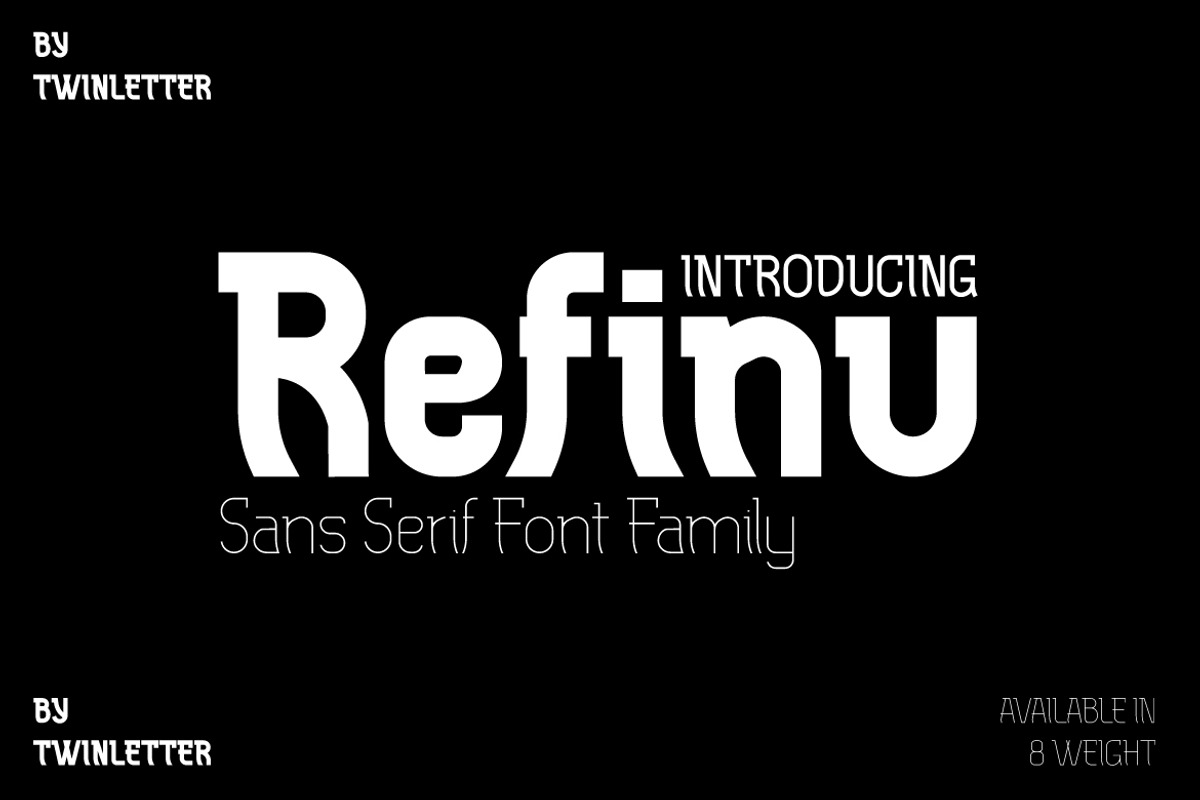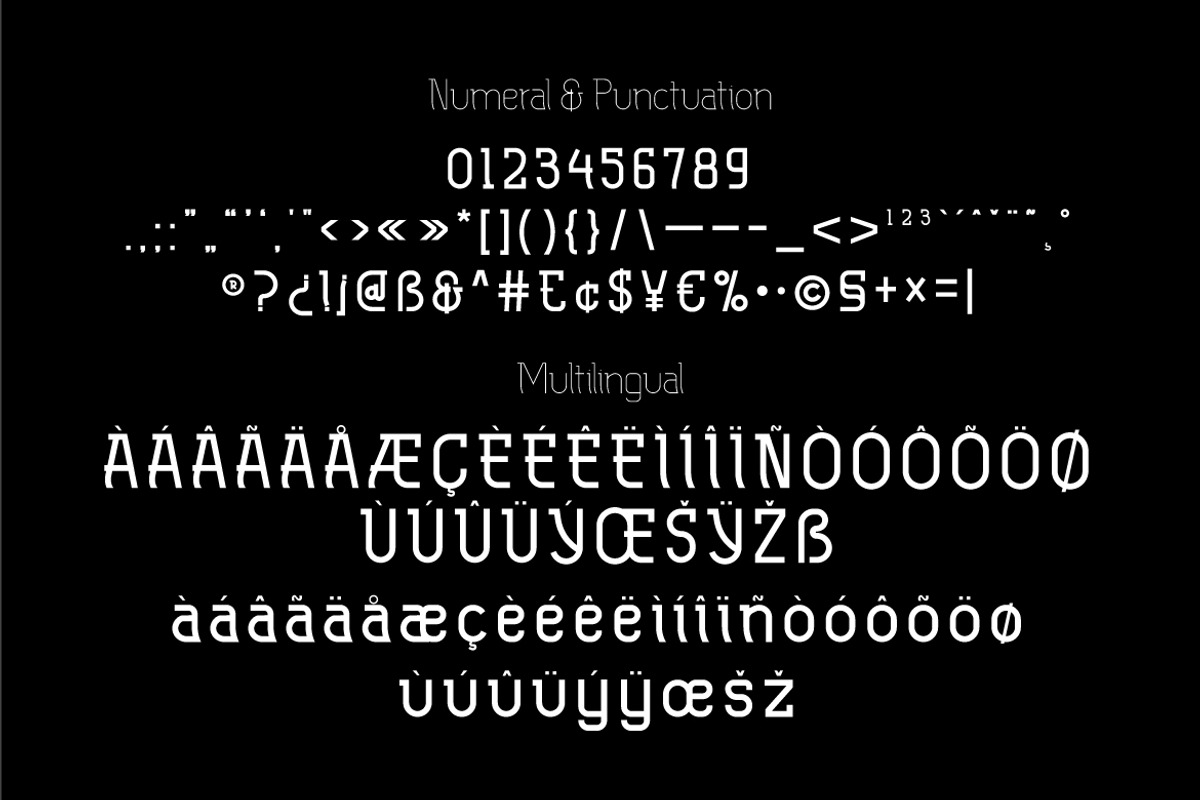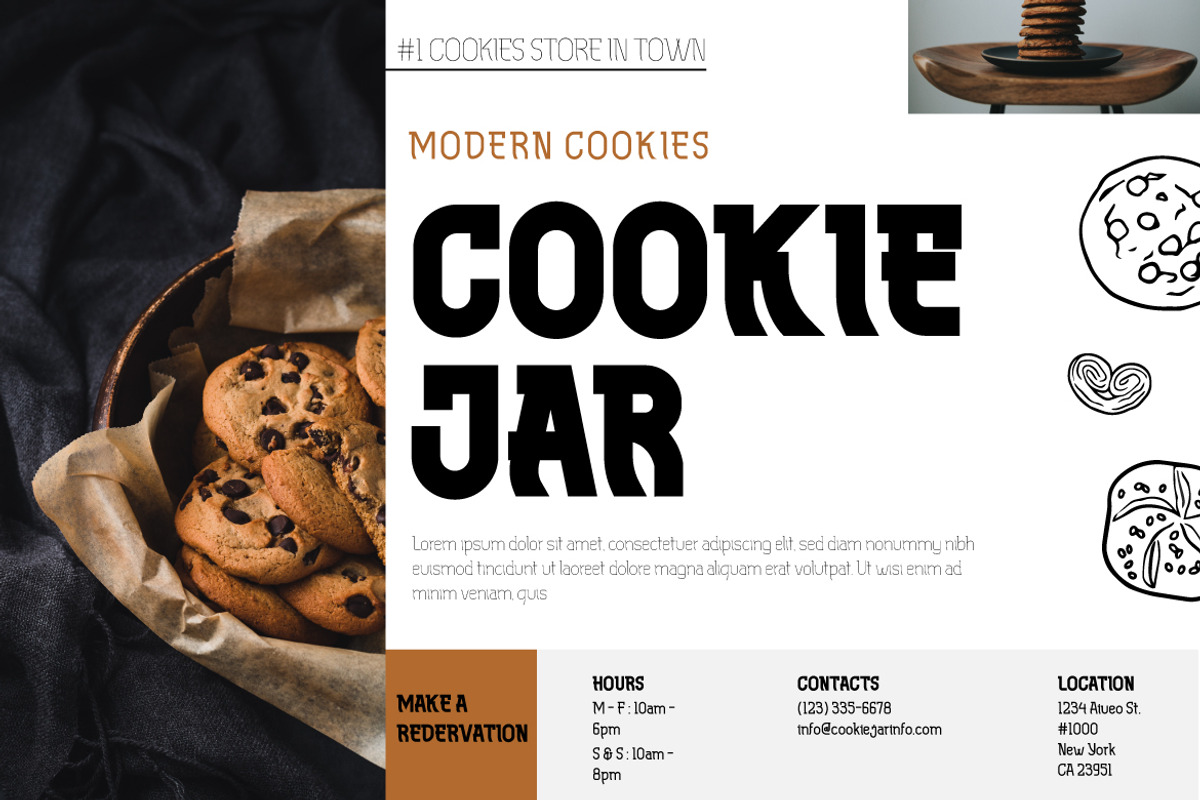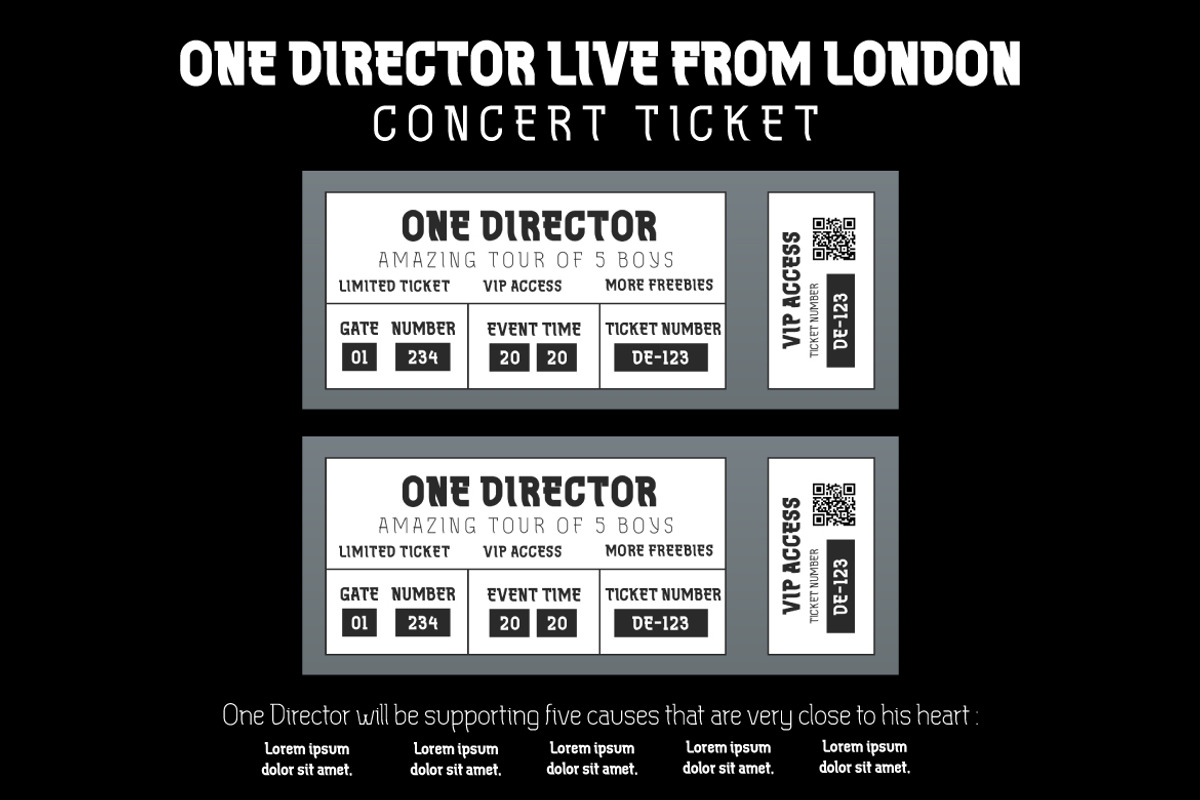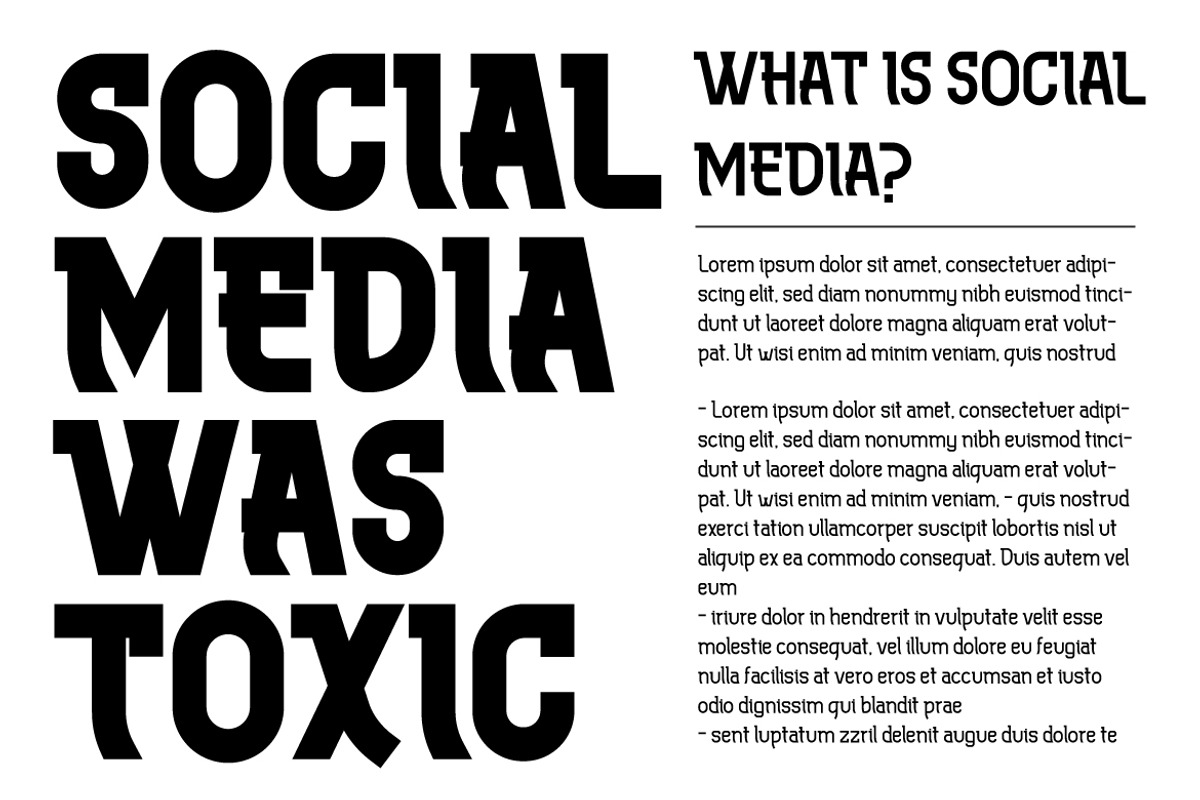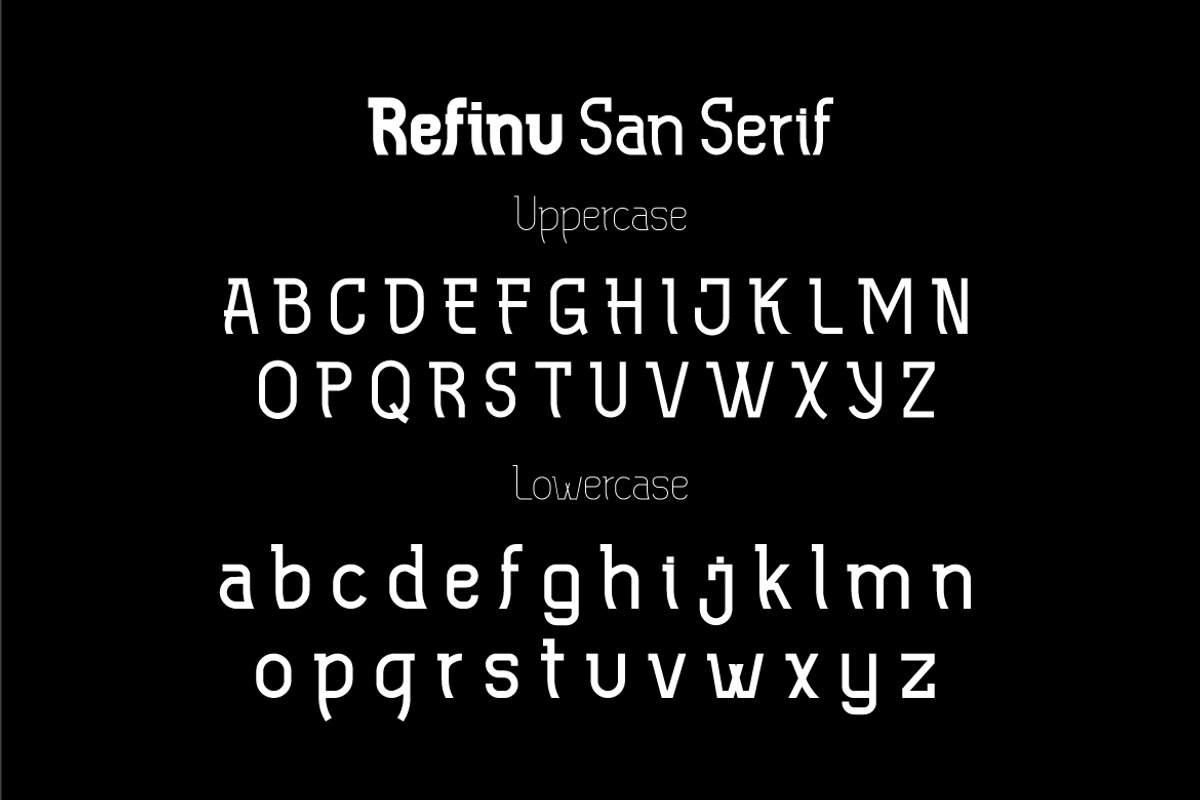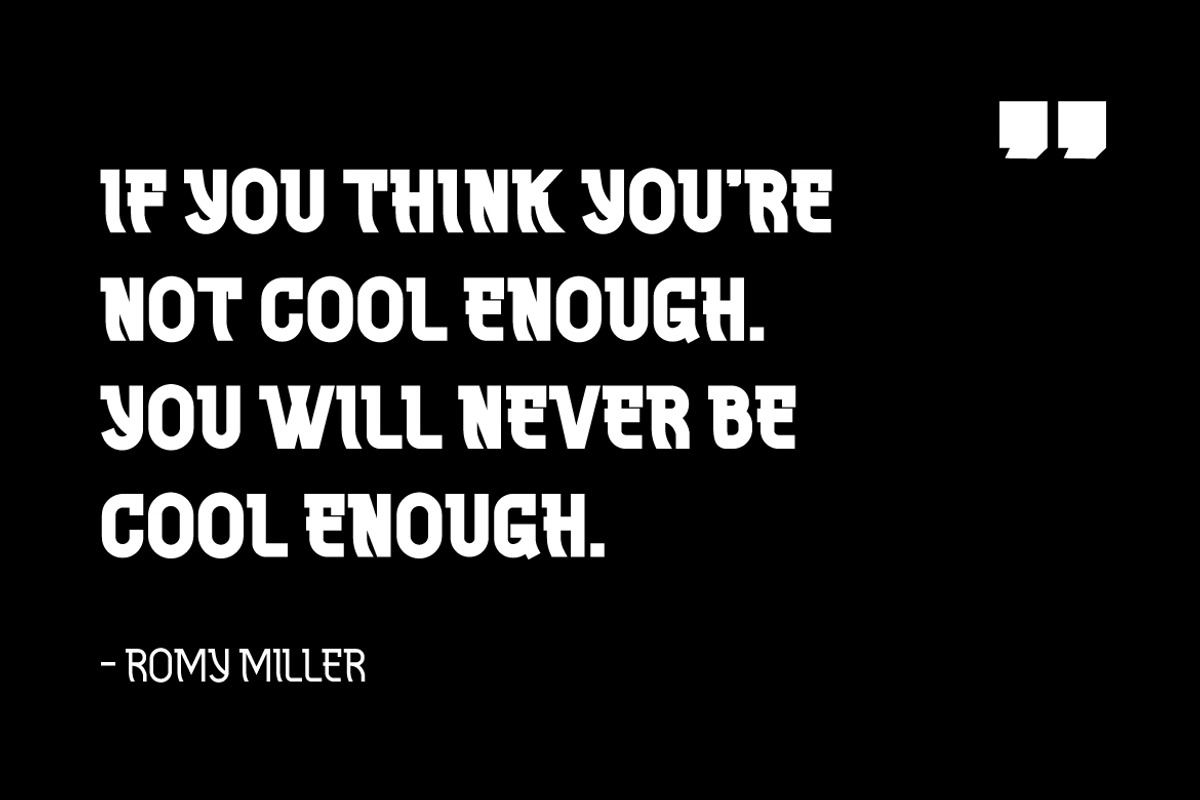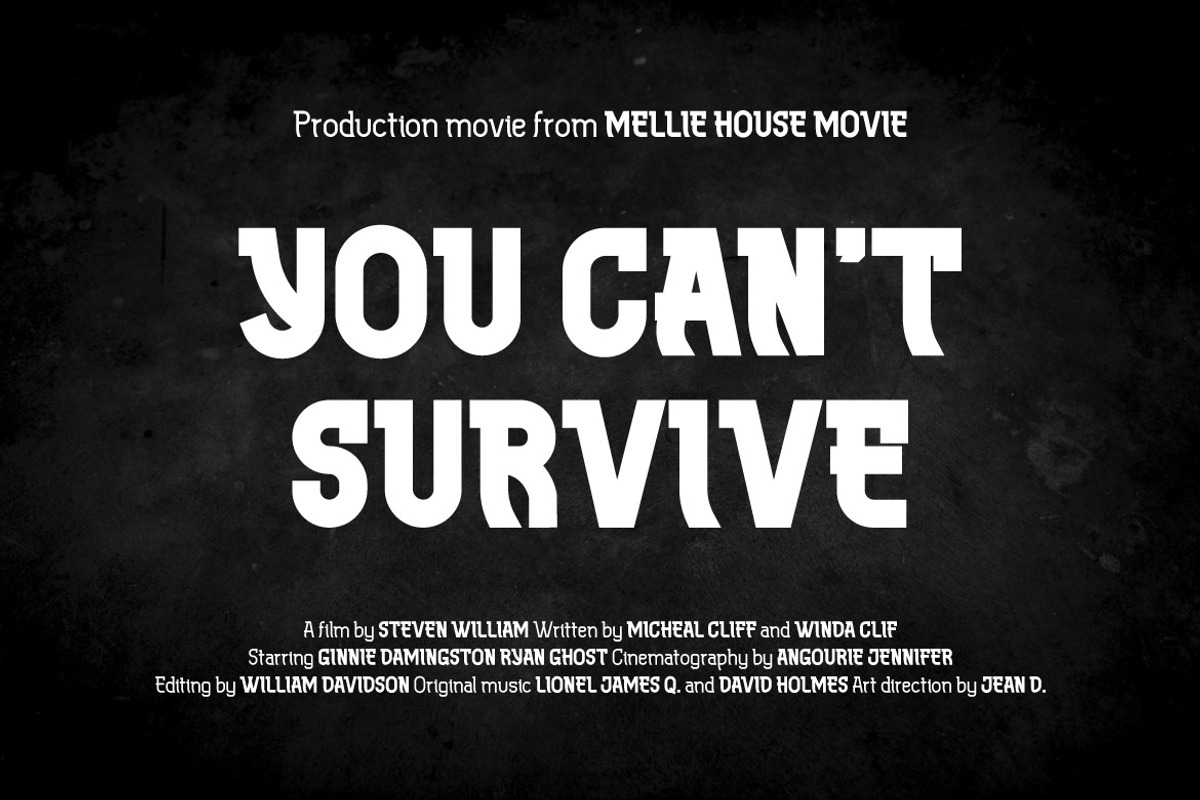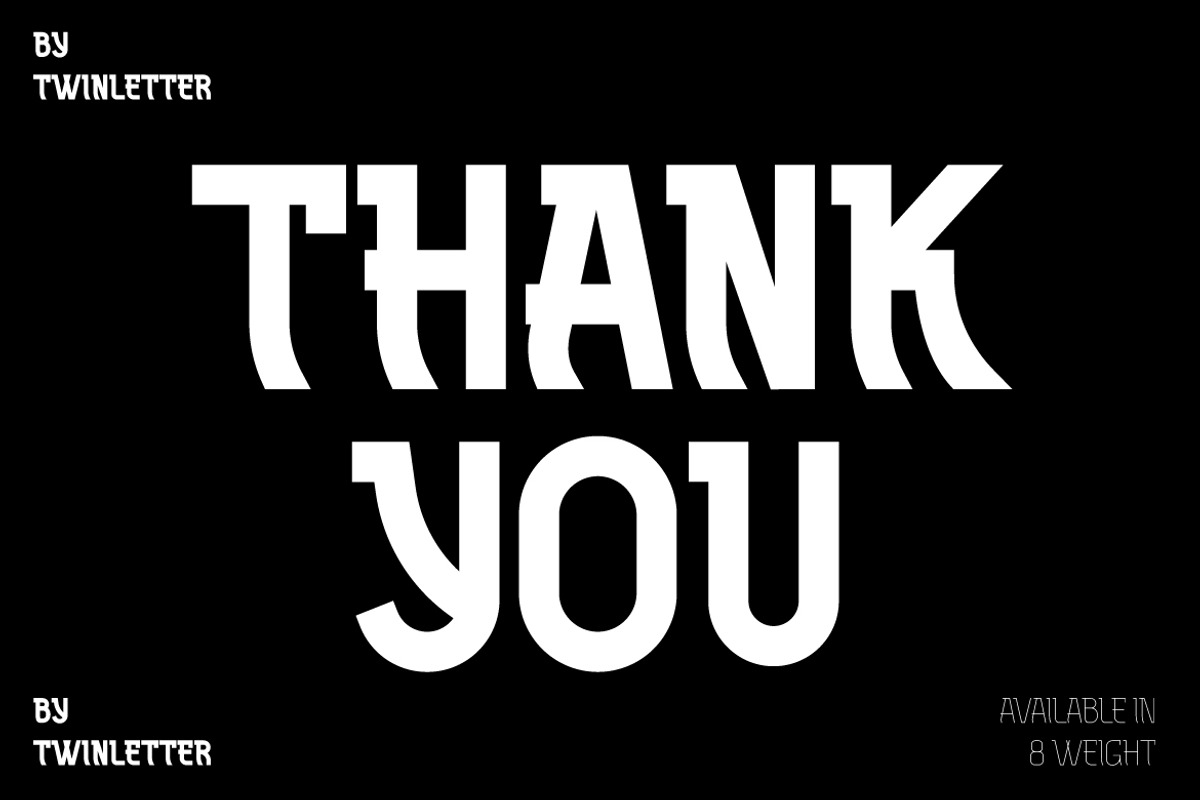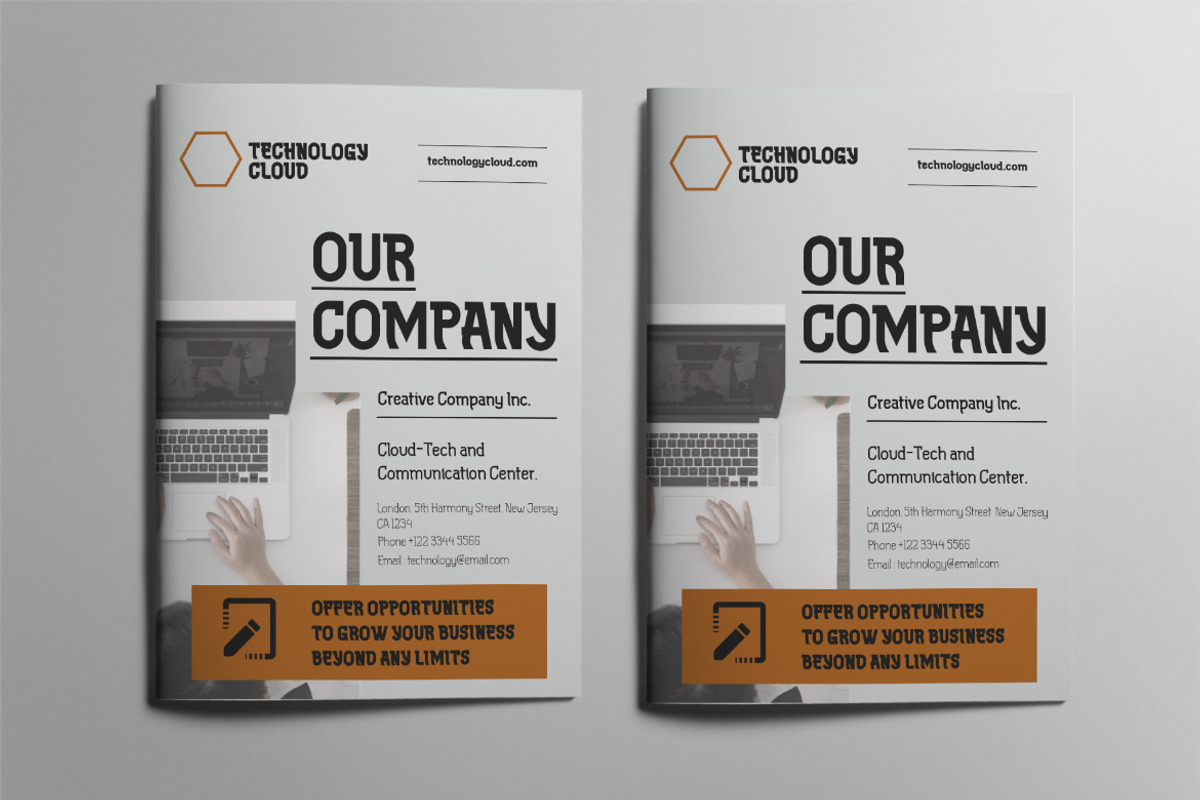
Refinu
This font is really interesting for you to use in various sorts of your projects, your project will be good and draw a lot of people’s attention. Refinu san serif font with a unique shape but still comfortable and easy to read. This font is also quite versatile and simple to use, allowing you to complete your tasks swiftly. But, more importantly, using this typeface will ensure that your project is remembered by your entire audience.
of course, your various design projects will be perfect and extraordinary if you use this font because this font is equipped with a font family, both for titles and subtitles and sentence text, start using our fonts for your extraordinary projects.